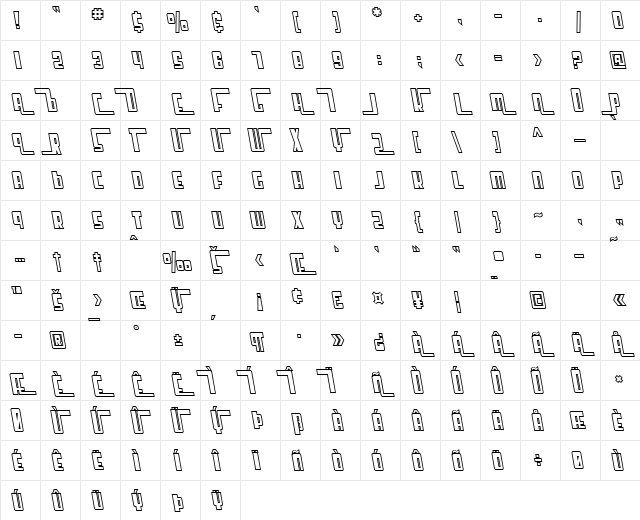
Complete SF Cosmic Age Outline Oblique glyph index. Displaying only characters natively supported by SF Cosmic Age Outline Oblique font.
SF Cosmic Age Outline is built around its visual character rather than neutral utility - its distinctive forms are designed to make an impression at display sizes. The slanted form adds forward momentum and visual energy.
Font Pairing: Pair with a clean neutral sans-serif for body copy to let SF Cosmic Age Outline's character lead without overwhelming the composition.
Pro Tip: Use SF Cosmic Age Outline exclusively at display sizes - it was designed to be seen, not read at length. Let a neutral companion handle body copy.